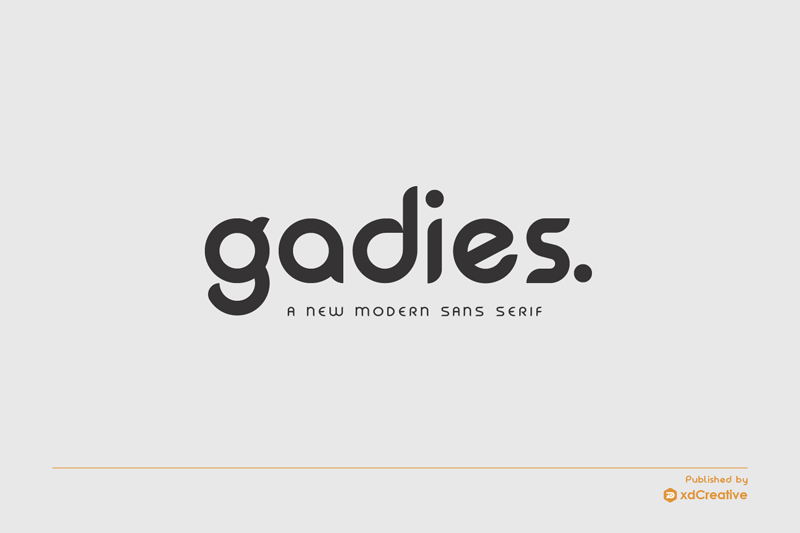
Gadies is a modern sans serif font. With its amazing and fun style, this typeface will look outstanding in both formal and non-formal designs. ____________________________________________________ This is Free for personal use only, for full version please visit link https://www.creativefabrica.com/product/gadies/ref/216322/ Thank you __________________________________ Support and buy me a cup of coffee https://www.paypal.me/FadilAbdillah |